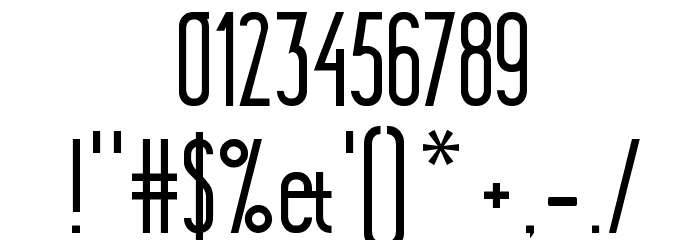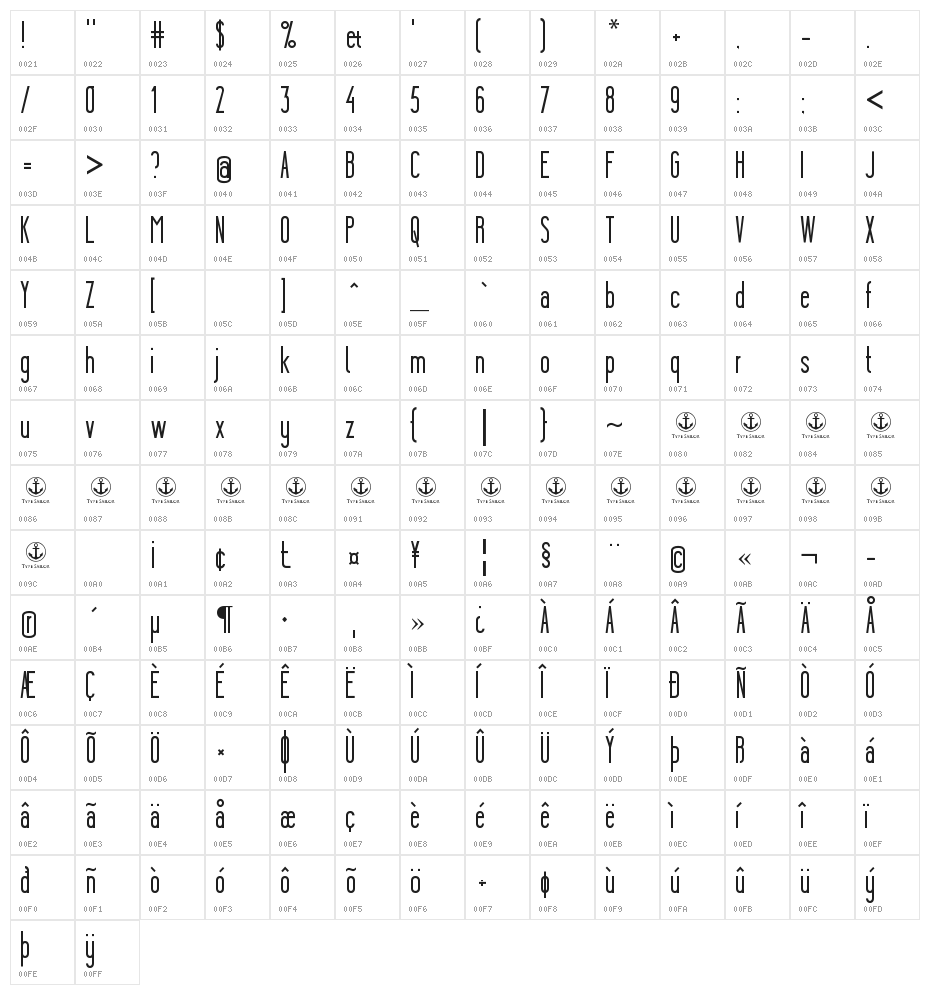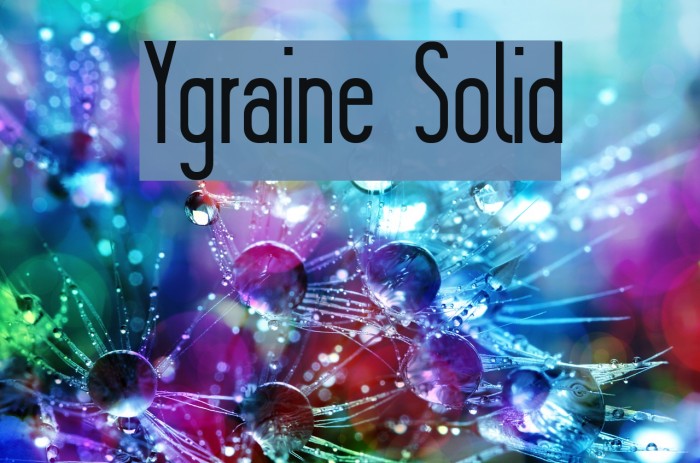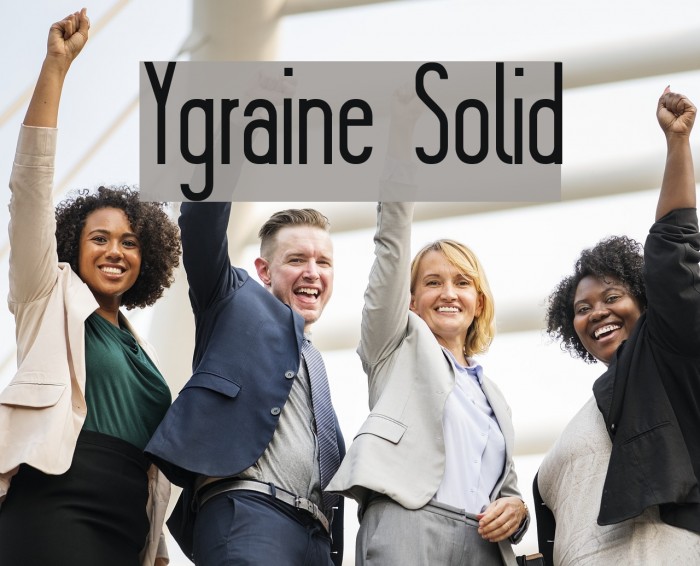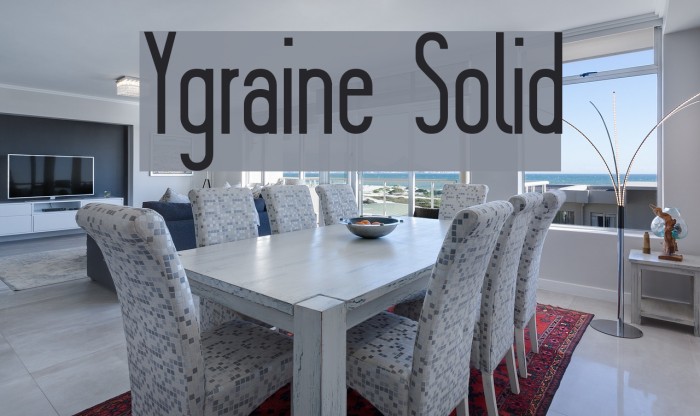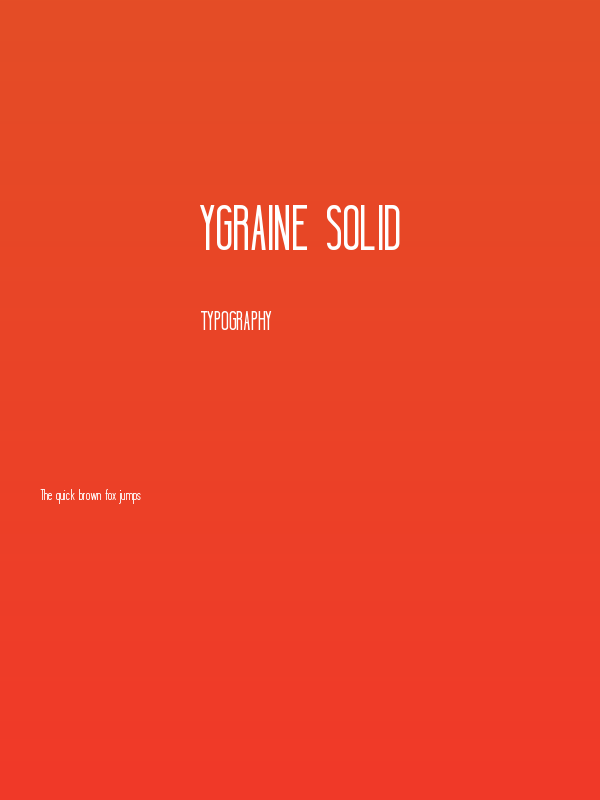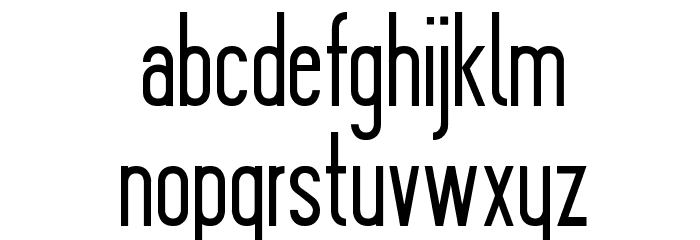
Ygraine Solid Font
Ygraine Solid Description
This font features a sleek, modern design with tall, narrow characters that convey a sense of elegance and sophistication. The uppercase letters are uniform in height, while the lowercase letters maintain a consistent style, offering a harmonious balance. The numerals are clean and easy to read, making them suitable for various applications. Special characters are well-defined, adding versatility to the font's use. The overall appearance is minimalist, with a focus on clarity and readability, making it ideal for contemporary design projects.
| Proposed Projects | Ideal for branding, editorial design, advertising, and digital interfaces. |